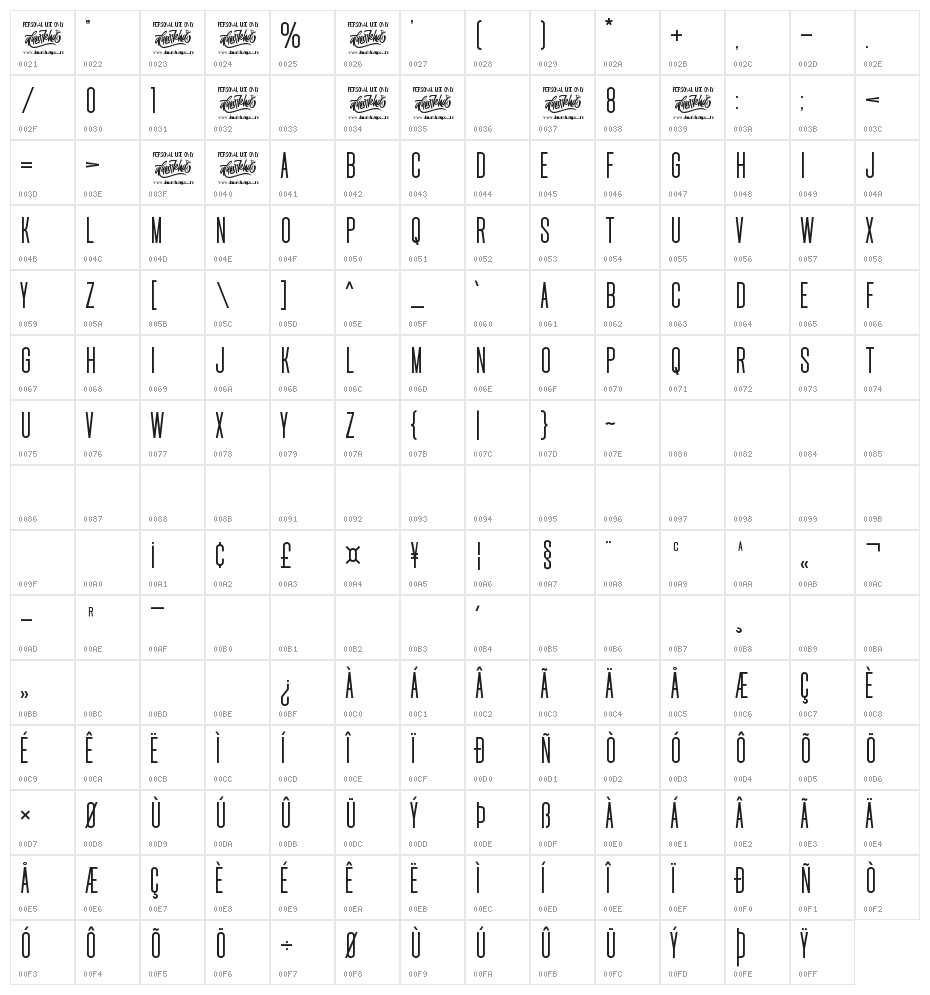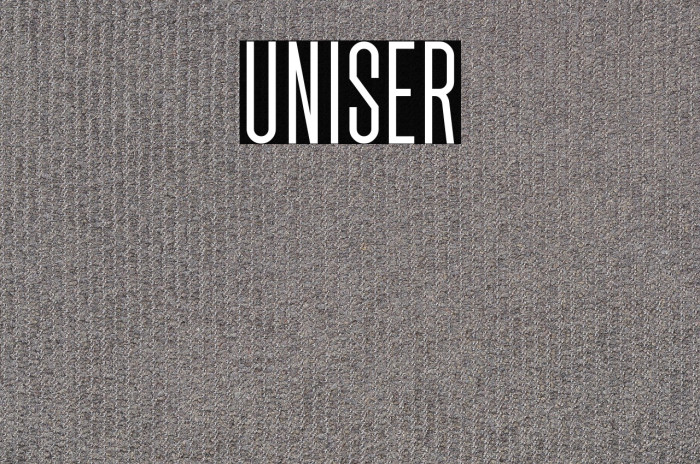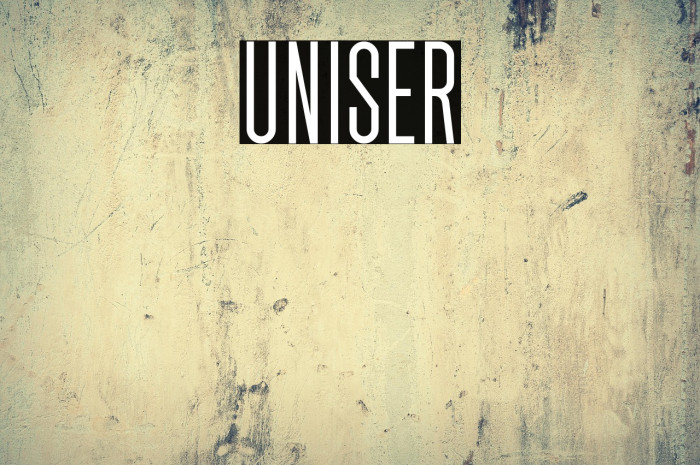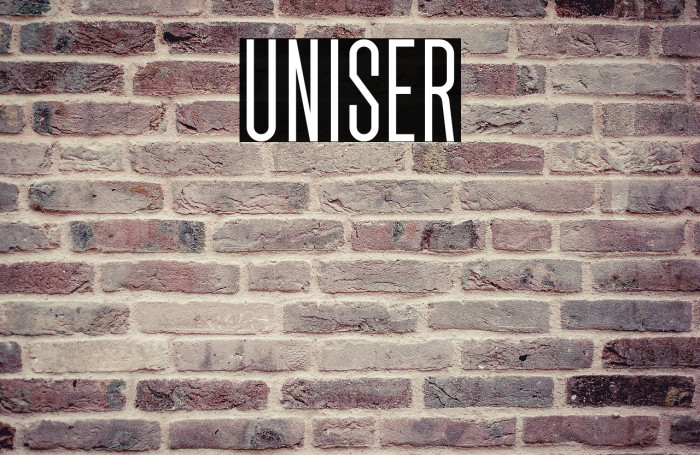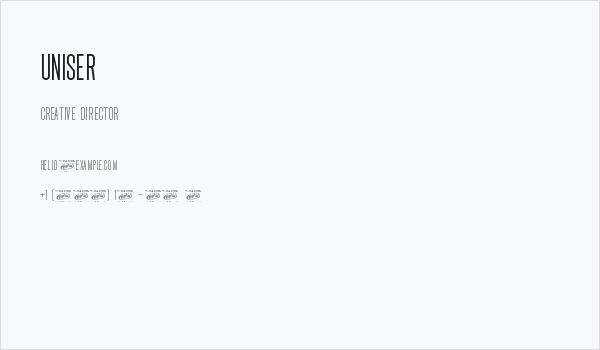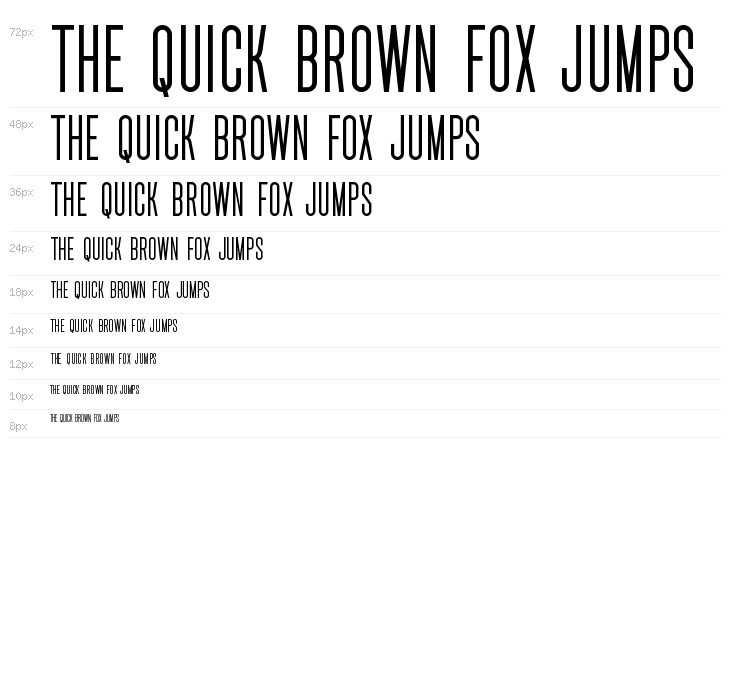
Uniser Font
Uniser Description
This font features a tall, narrow design with clean lines and a modern aesthetic. The uppercase letters are elongated, giving a sense of height and elegance, while maintaining a uniform stroke width throughout. The lowercase letters follow the same narrow structure, ensuring consistency across the typeface. The numerals are similarly styled, with a sleek and contemporary look. Special characters are included, maintaining the same design principles, making this font versatile for various applications. Its overall appearance is both stylish and functional, suitable for projects that require a modern and sophisticated touch.
| Proposed Projects | Ideal for branding, editorial design, posters, and digital media where a modern and sleek look is desired. |